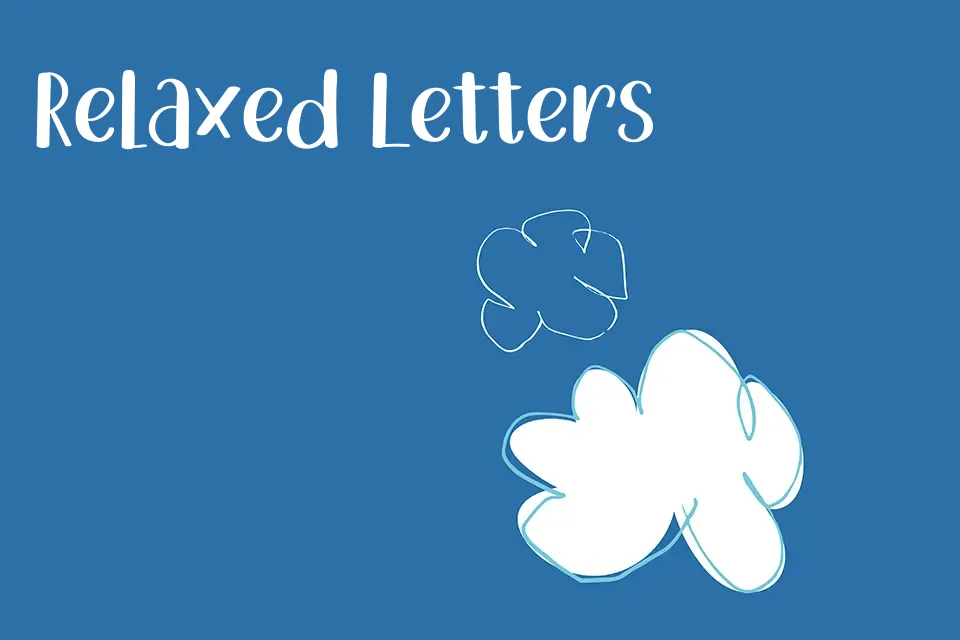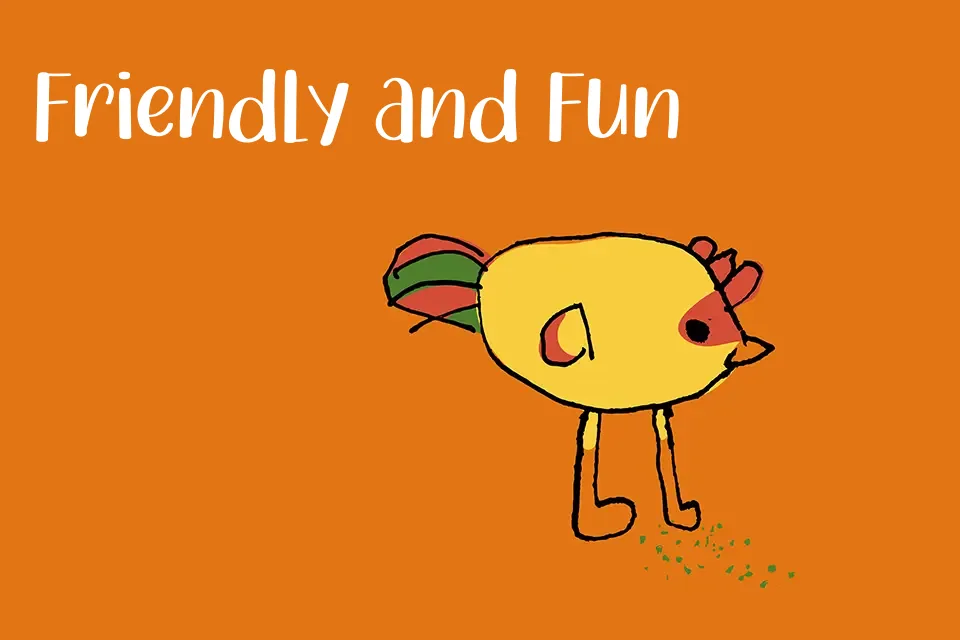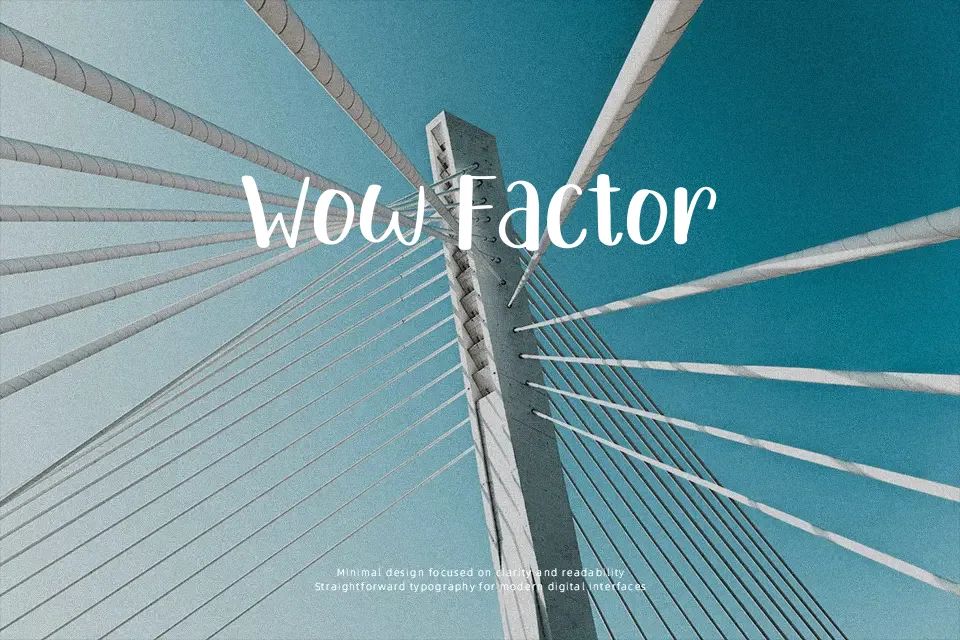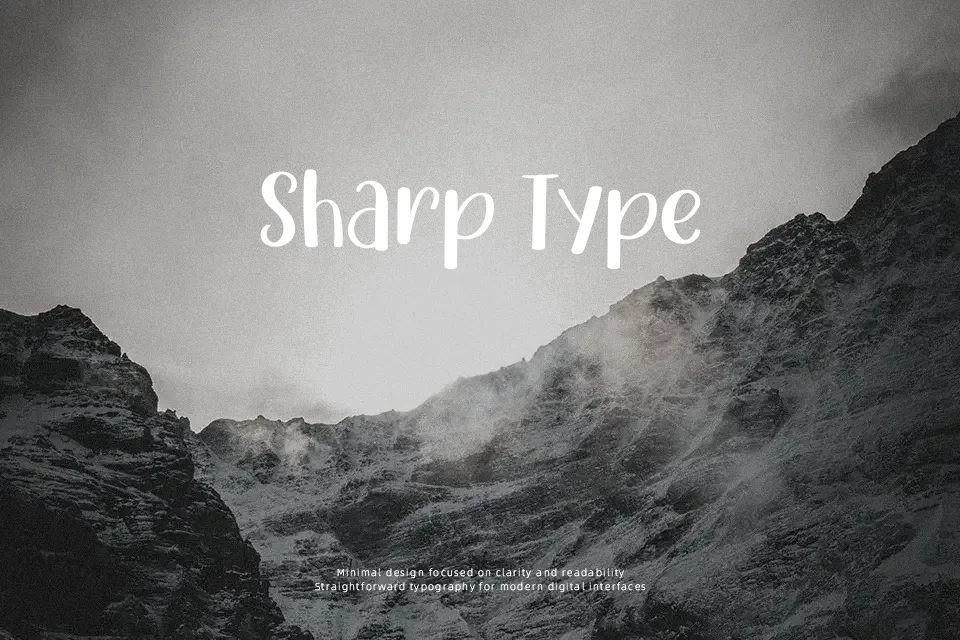
Typography Font
Typography Font performs most reliably in prominent display settings, where its weighty strokes and softened corners establish an informal aesthetic. The letterforms combine tall, sturdy capitals with compact lowercase glyphs that display subtle baseline irregularities. Consistent stroke thickness and negligible contrast give the typeface a solid silhouette, while balanced character spacing prevents adjacent glyphs from colliding. Clarity remains sharp across short titles and merchandise packaging, yet the dense shapes become difficult to decipher in extended paragraphs or compact mobile captions. For celebratory posters, cafe signage, or children’s product labels, the design provides an engaging, handcrafted focal point.
Best For: children’s book titles, celebratory event posters, casual food packaging, cafe menu headers
Not Ideal For: dense body text, corporate annual reports, small user interface captions, legal contracts
Perfect for headline, kids, and logo, with a bold and display style.